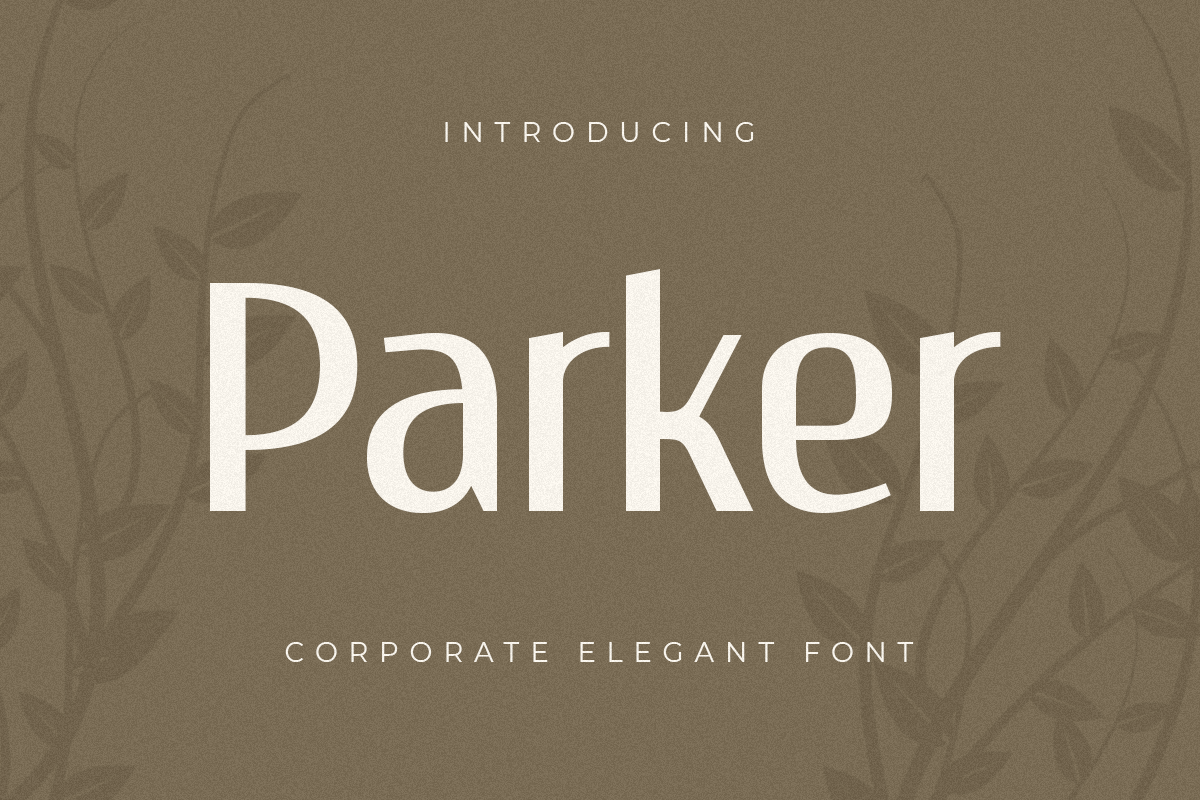
Parker - Corporate Elegant Font
Transform your brand with Parker's sophisticated sans serif design and perfect contrast styling. This elegant typeface delivers the classy, modern aesthetic that designers and product owners need to elevate their brand value. Parker combines clean sophistication with versatile functionality, making it ideal for any branding project that demands a premium look. The font includes creative ligatures and alternate characters that unlock unlimited design variations for your projects. Whether you're c...